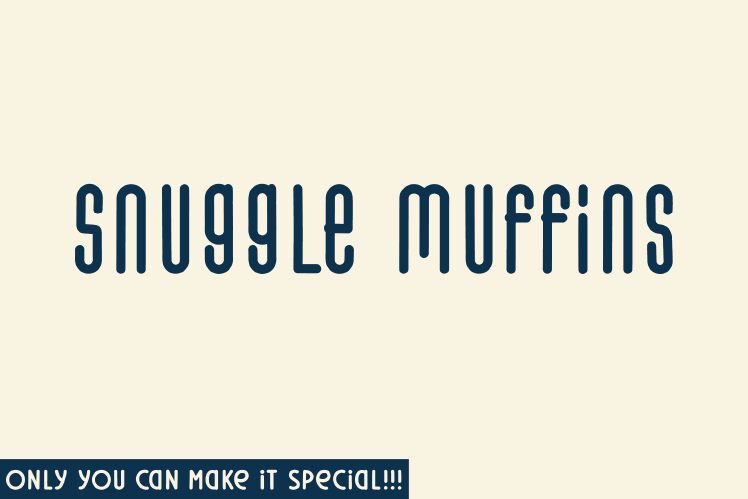
Snuggle Muffins
Snuggle Muffins font by Hanna Bie is a cohesive and approachable modern display font. The overall appearance is rounded and friendly, with visual characteristics best suited for making any design inviting, unique, and attention-worthy. Condensed width adds its twist which makes this free font ideal for achieving extraordinary surface writing styles.
Use Snuggle Muffins in a wide range of formats such as post card designs, greeting cards, wall prints, banners, business cards and stationery accessories. Use it when crafting logos or inspirational wording ideas. Try it even on product packaging labels and whatever else you might have on your mind!